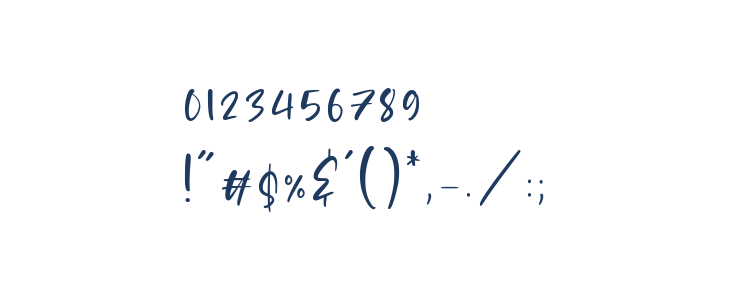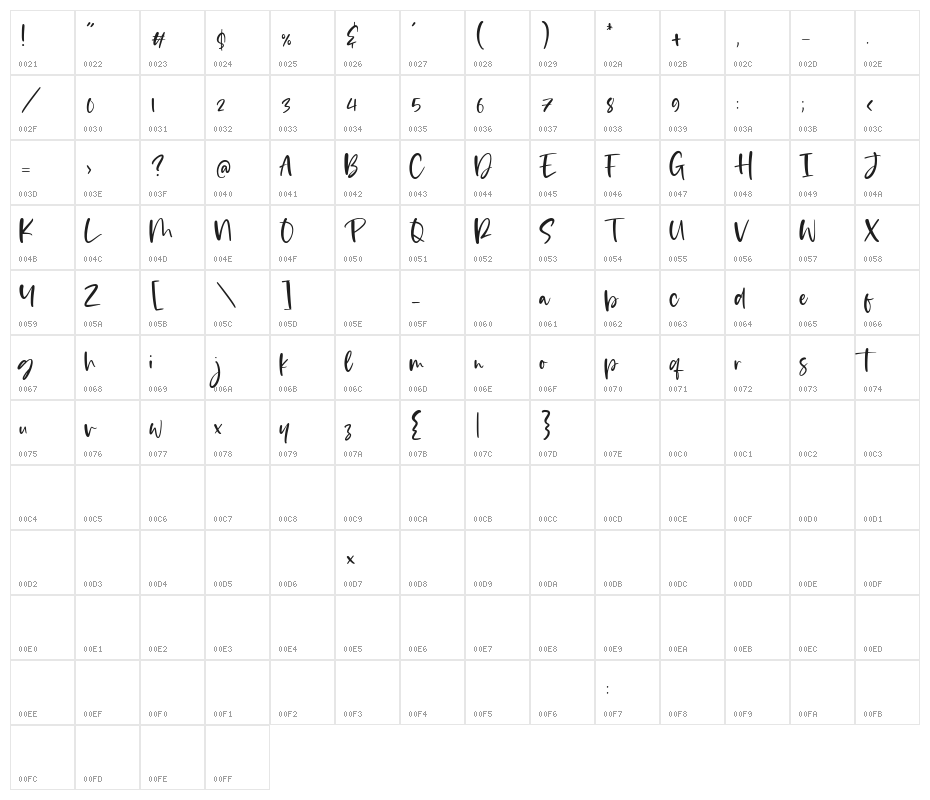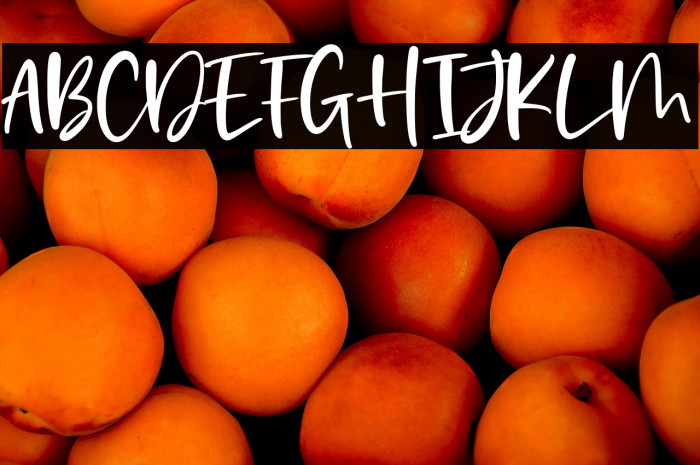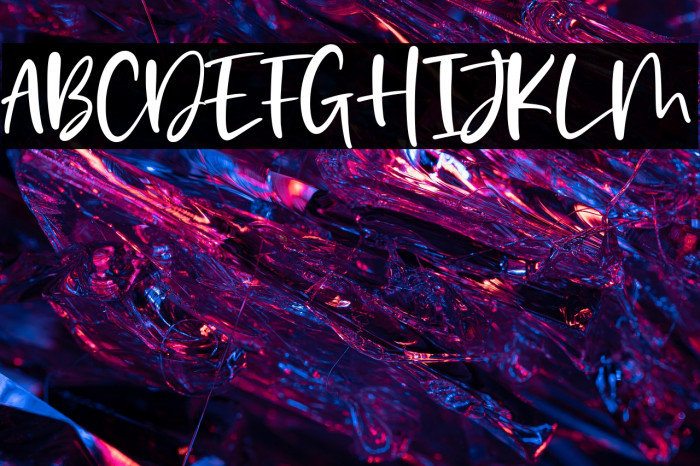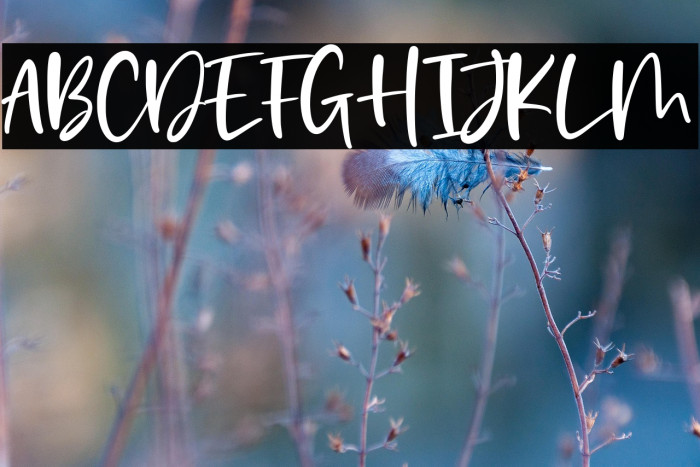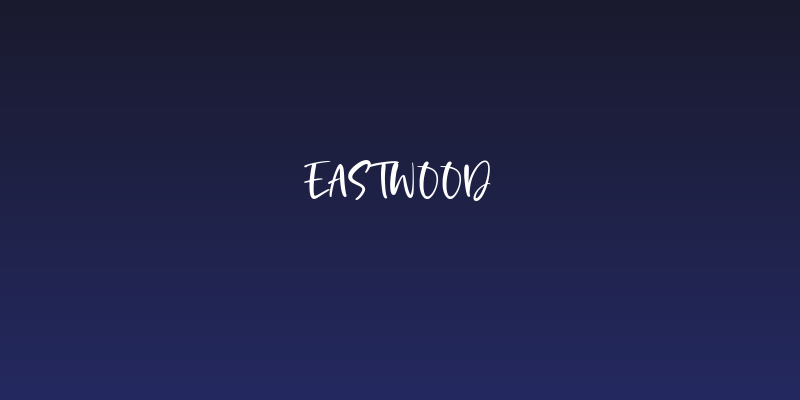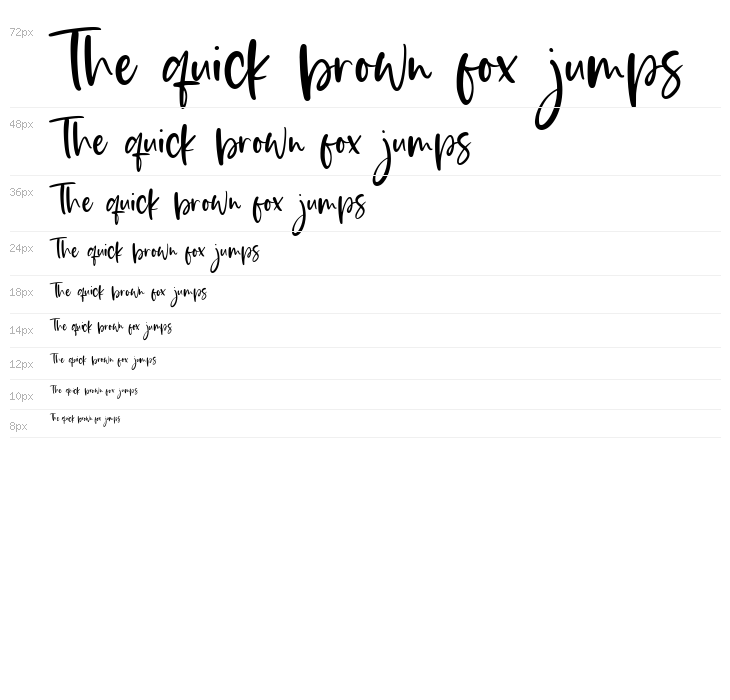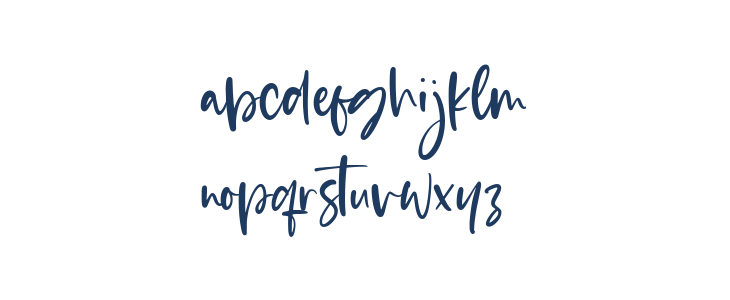
Eastwood Font
Eastwood Description
This font features a lively and expressive handwritten style, characterized by its fluid and dynamic strokes. The uppercase letters are bold and slightly irregular, giving a sense of spontaneity and energy. The lowercase letters maintain a consistent flow, with some characters extending below the baseline, adding to the casual and informal appearance. The numerals are clear and legible, matching the overall playful aesthetic. Special characters are creatively designed, maintaining the font's unique personality. This font is perfect for projects that require a personal touch or a creative flair.